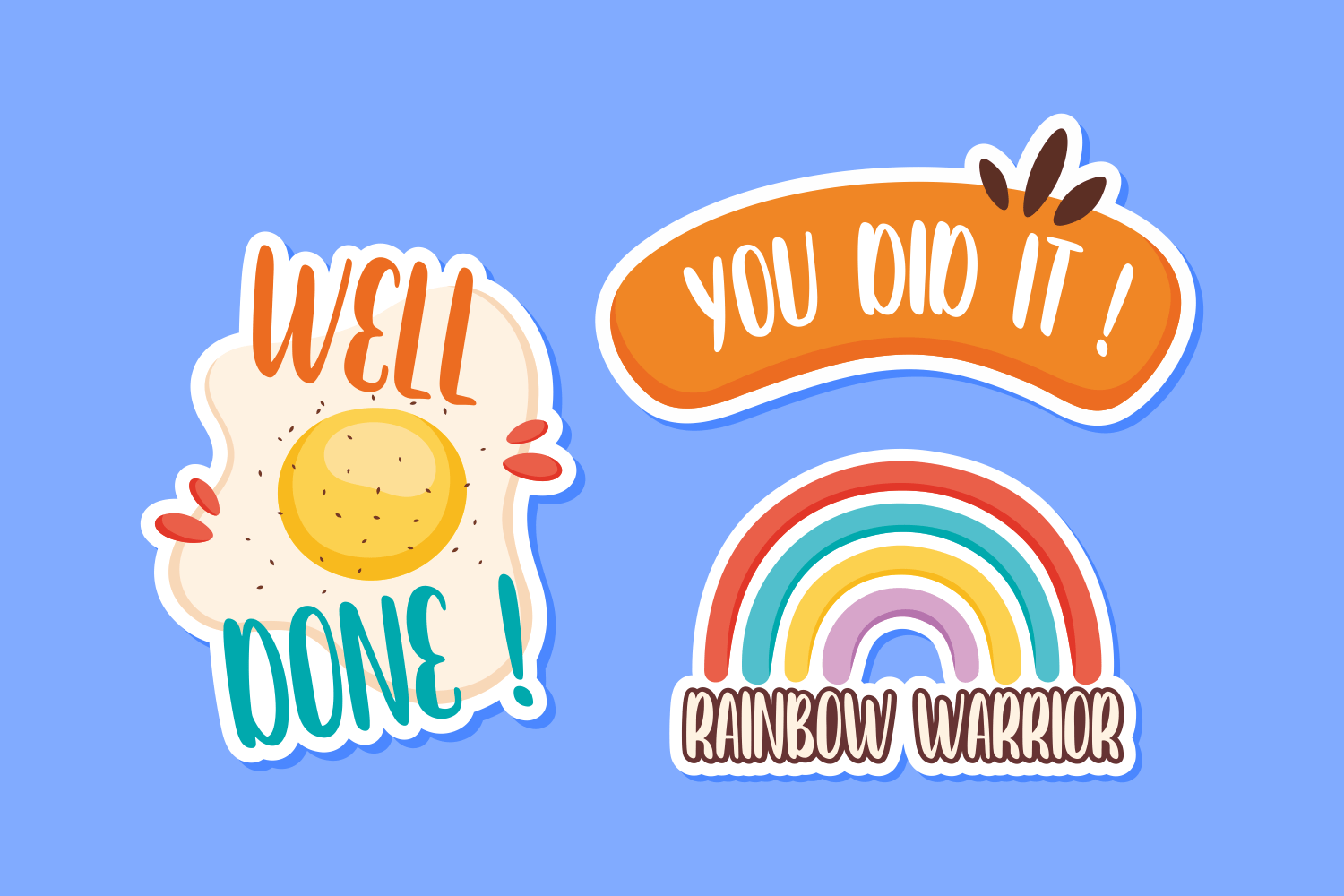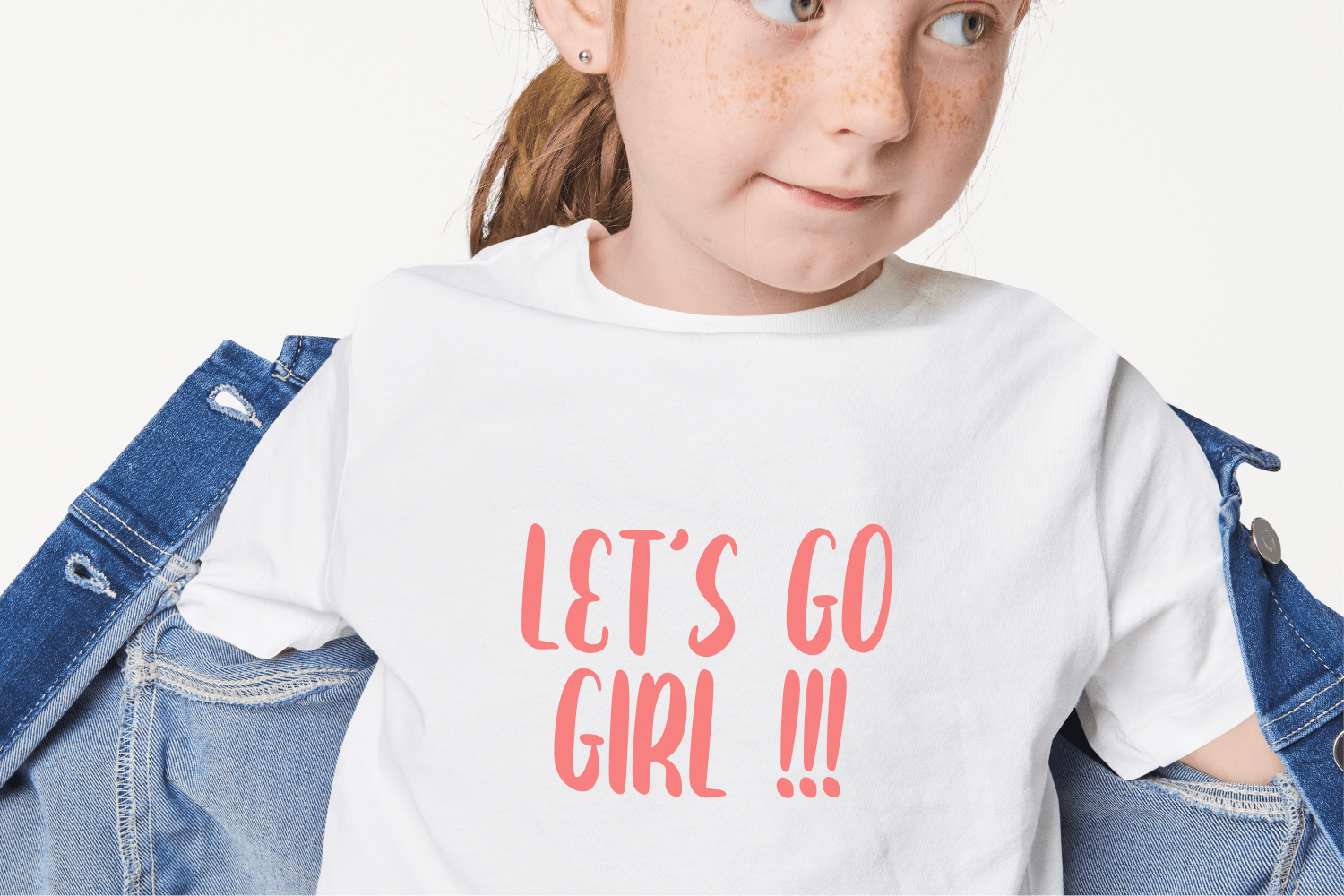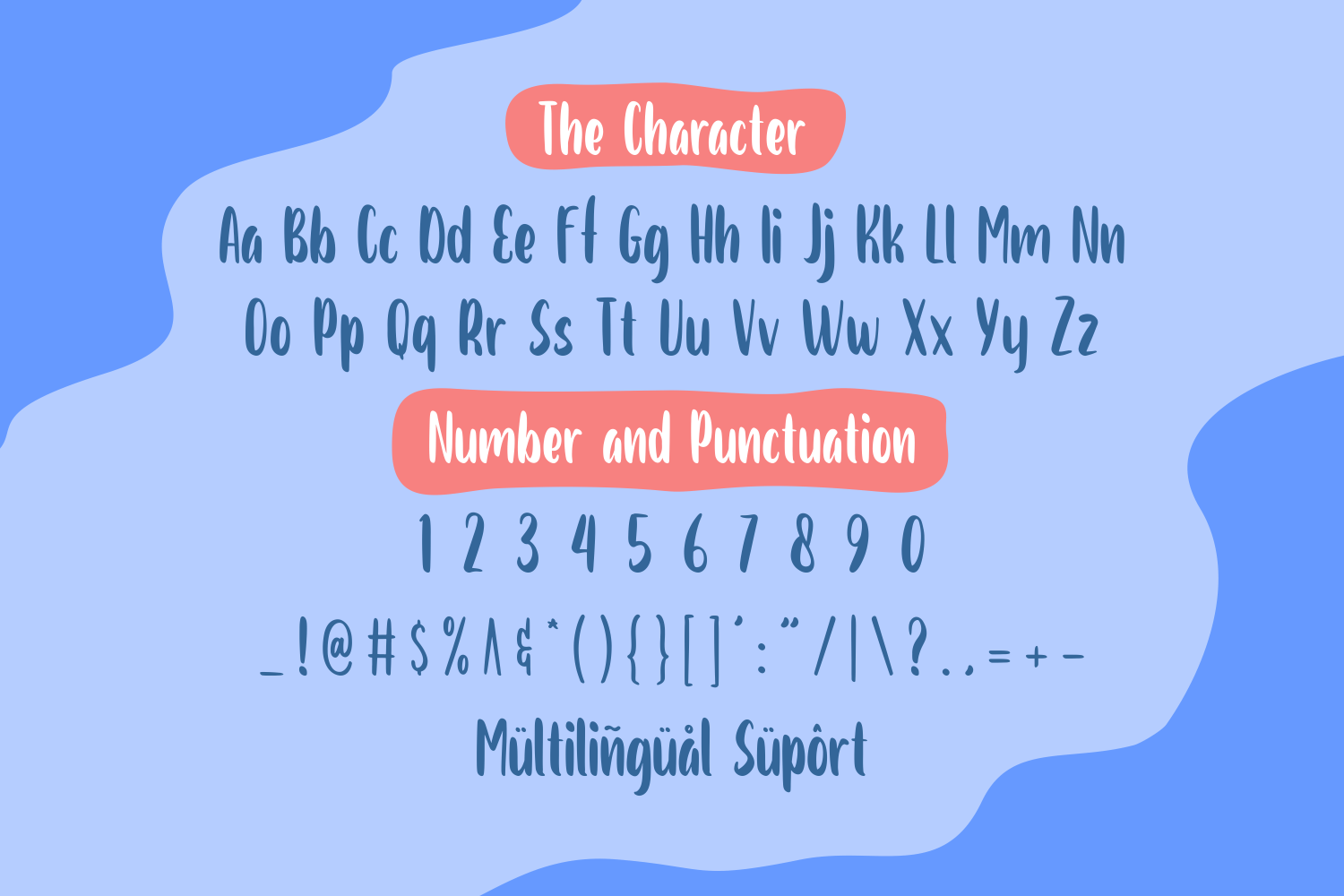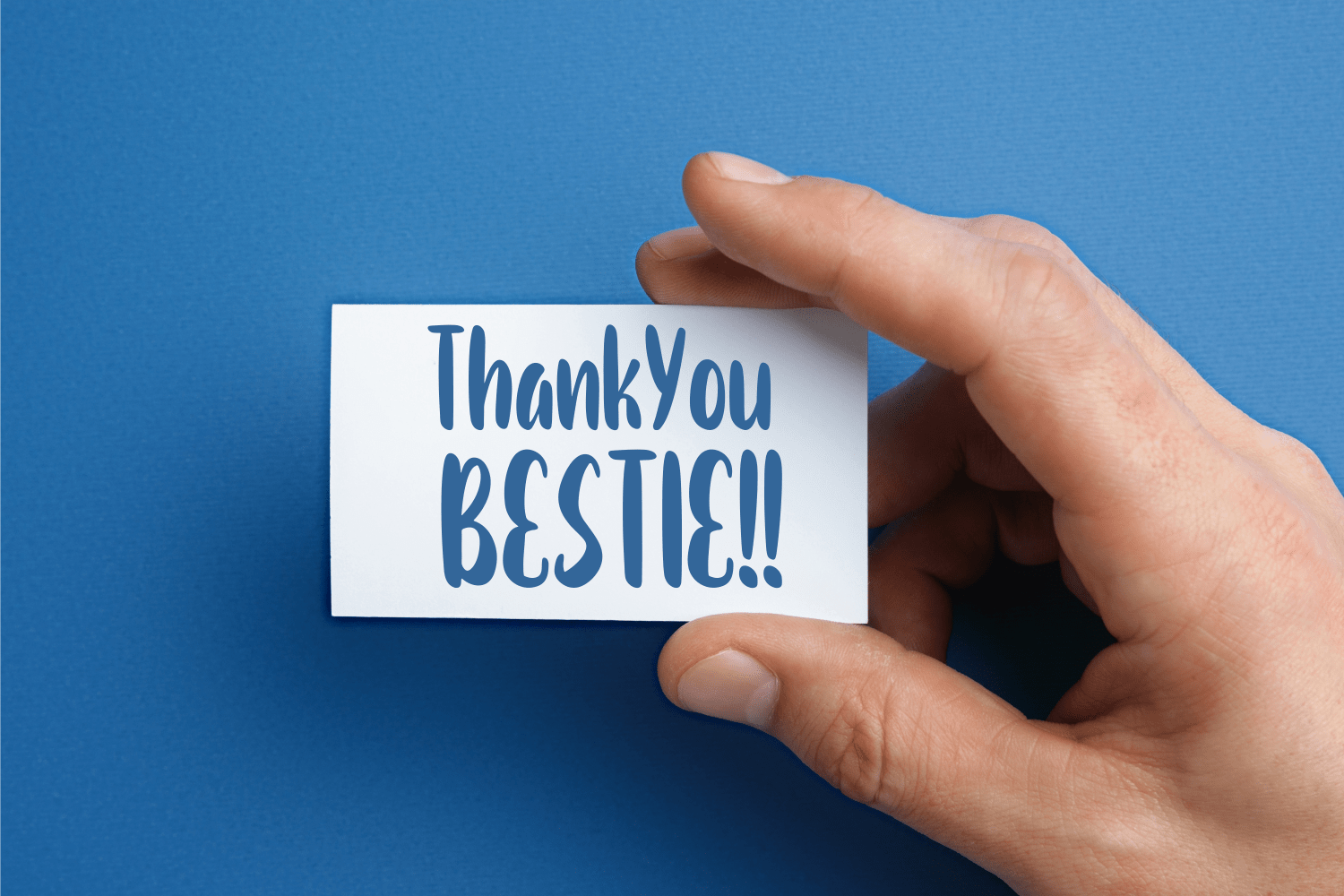
Rarara Font
Rarara Display Font is a fancy and elegant handcrafted font that was created to impress your audience and make your branding shine. Make your projects dance with this elegant and wonderful font wherever you use it.